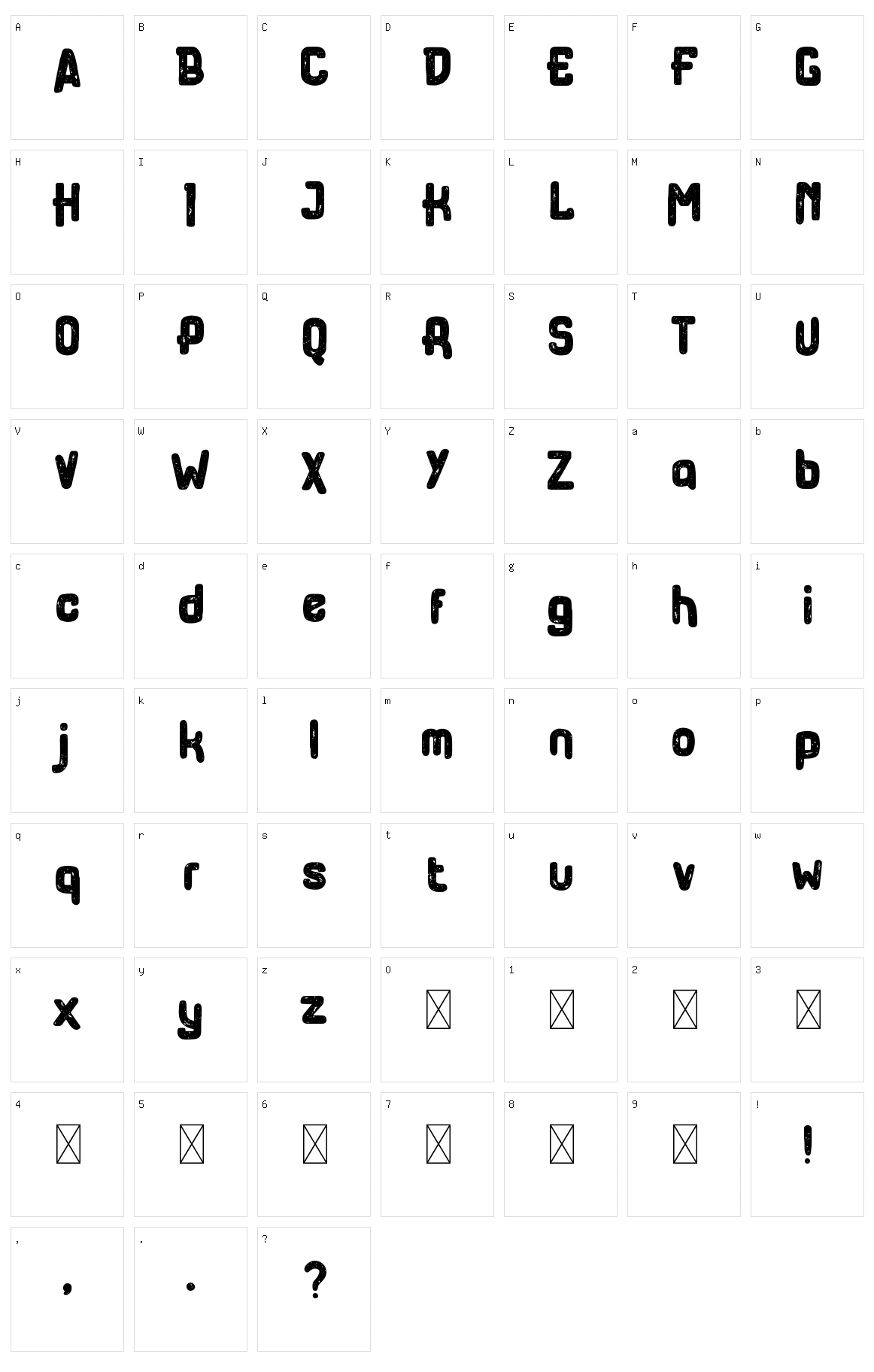
The free font Talake is carefully designed by Two Us Studio, showcasing a thoughtful balance of creativity and usability and falls under the Eroded font style. When you download the ZIP file, it contains only 65.57 KB of font files, making it lightweight and quick to download. Please review the license details below to understand permitted usage and distribution rights. If license information is not available, we recommend using this font for personal projects only or contacting the author directly for commercial usage permissions.